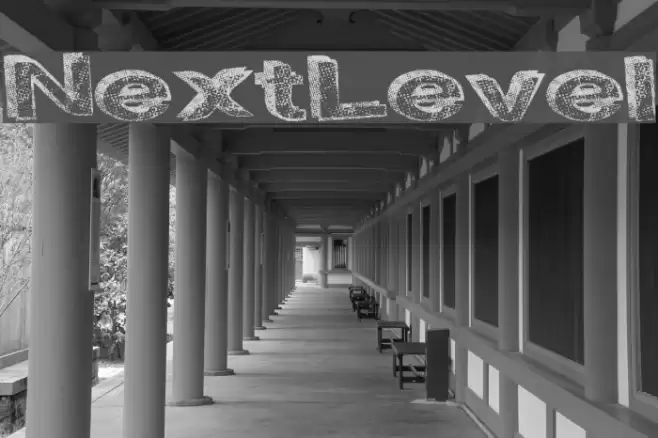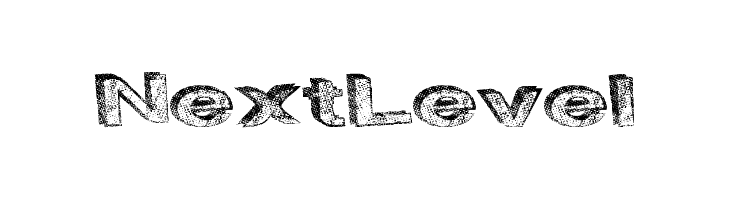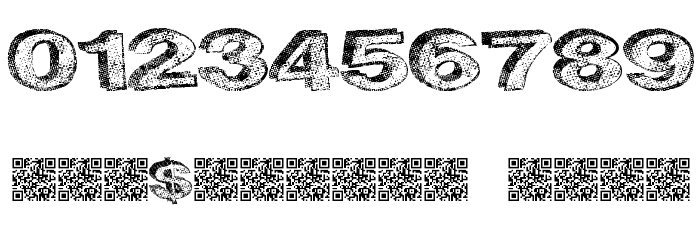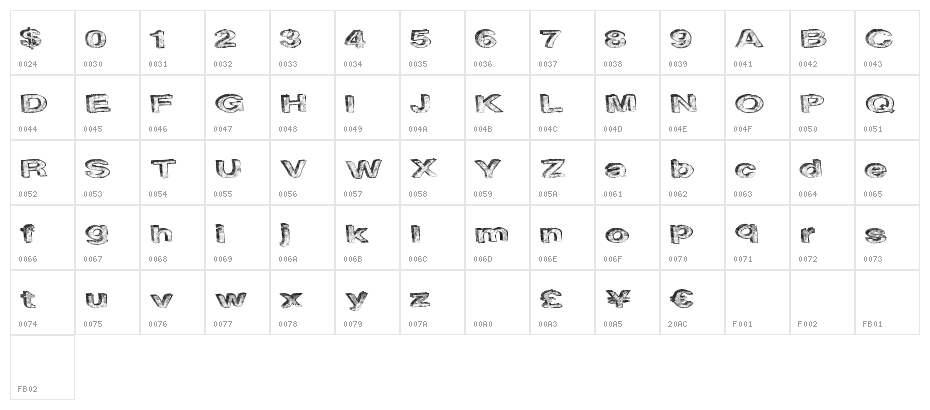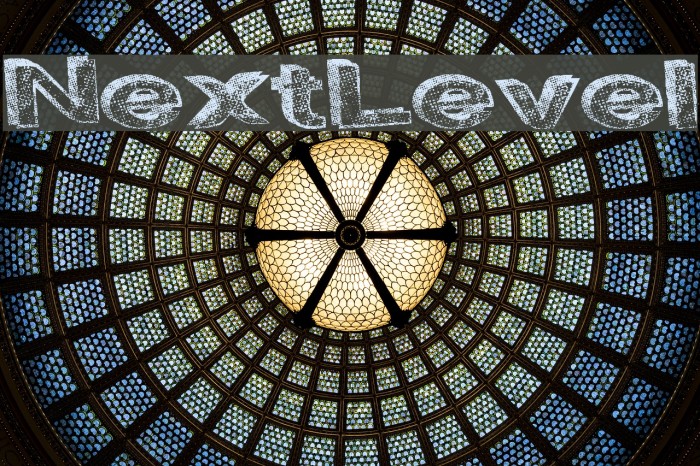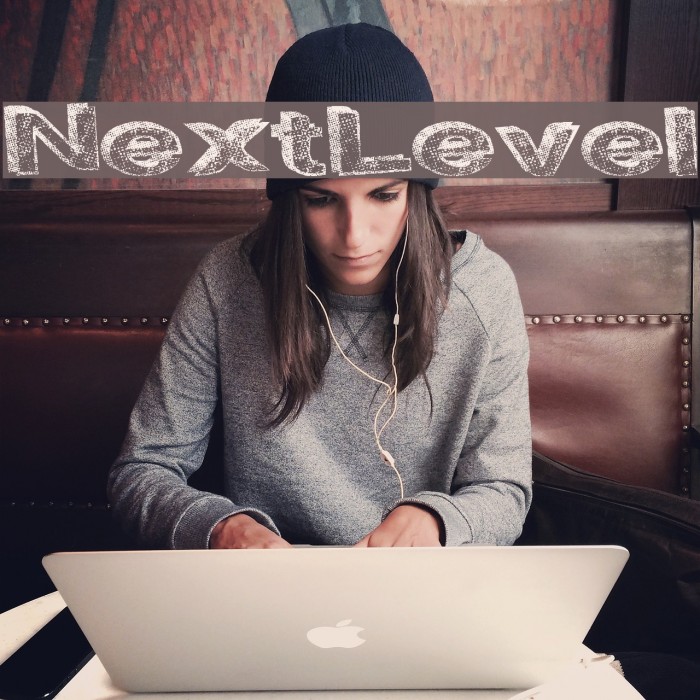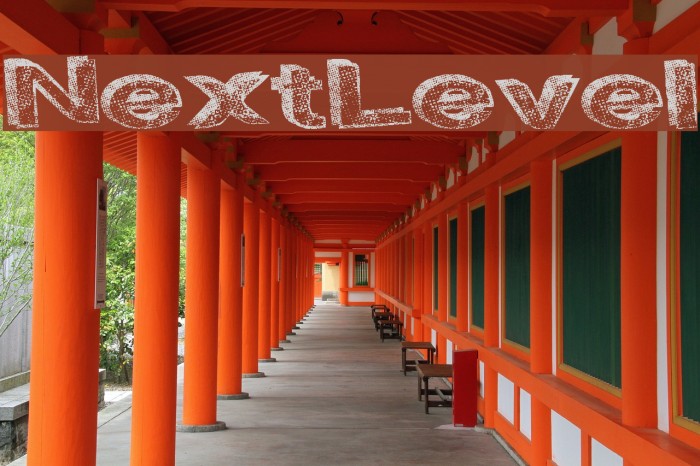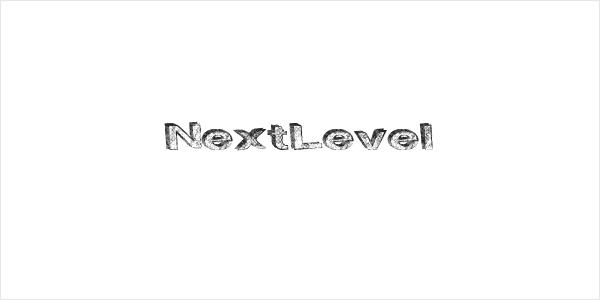
NextLevel Font
NextLevel Description
This font features a bold, textured style with a unique stippled effect that gives each character a dynamic and eye-catching appearance. The letters are uppercase and lowercase, with numerals and a selection of special characters. The stippling adds a sense of depth and movement, making it ideal for designs that require a standout element. The overall look is modern yet playful, with a hint of vintage charm due to the textured finish. The characters are well-proportioned, ensuring readability while maintaining their artistic flair.
A bold, textured font with a stippled effect, perfect for eye-catching designs from Distorted Eroded fonts.
- Proposed Projects: Ideal for posters, branding, headlines, and any project needing a bold, artistic touch.
- Overall Style: Modern, Decorative